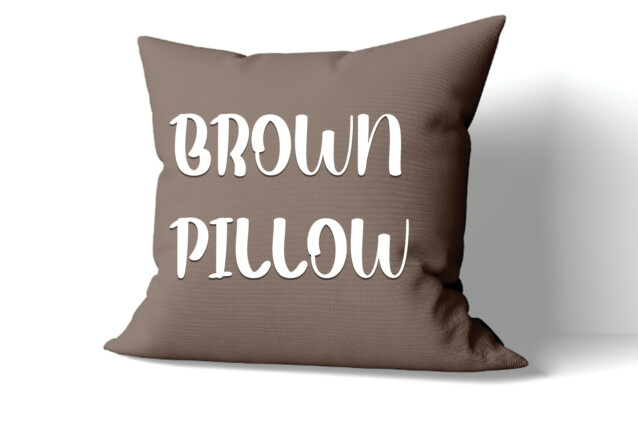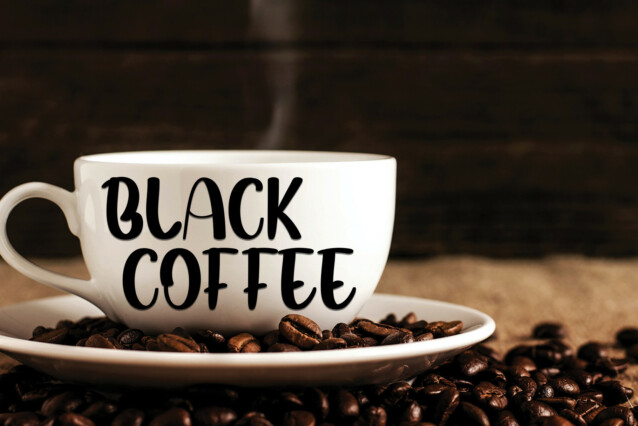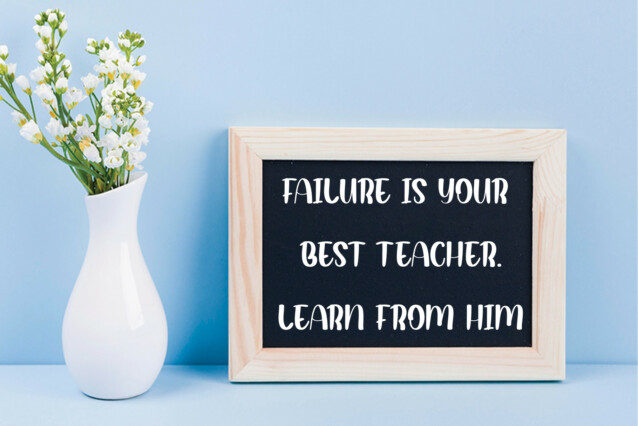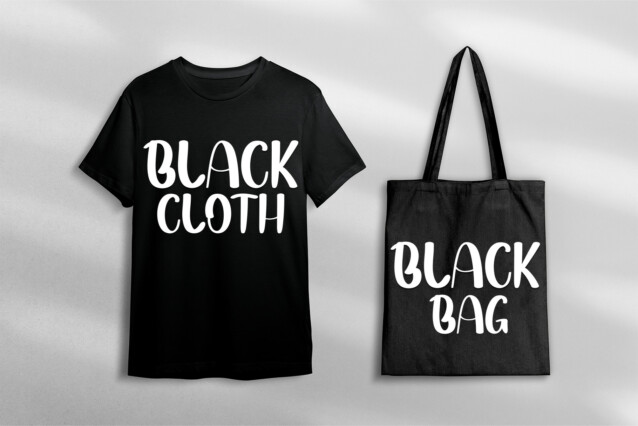
Bluberry Cheesecake Display Font is a sweet and friendly handwritten display font. Cute and fun, this font is ideal for writing wedding invitations, cards, or any other design that might need a playful touch!